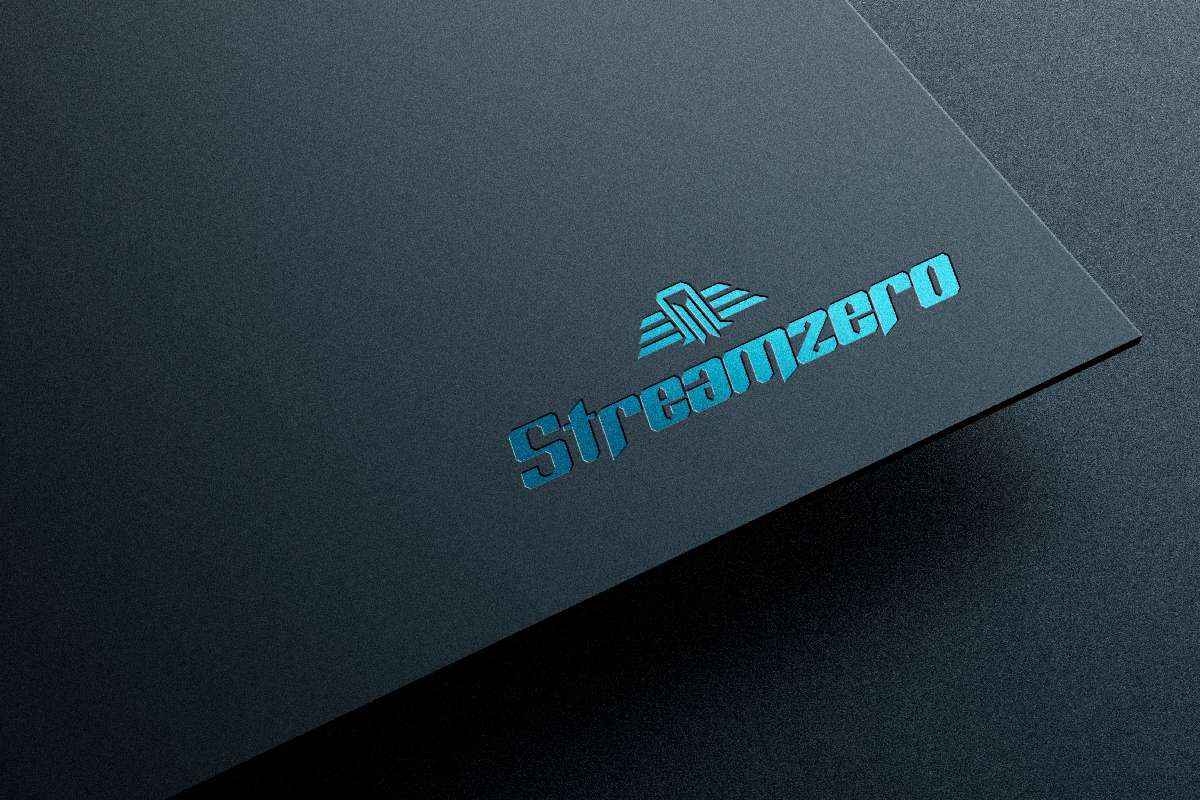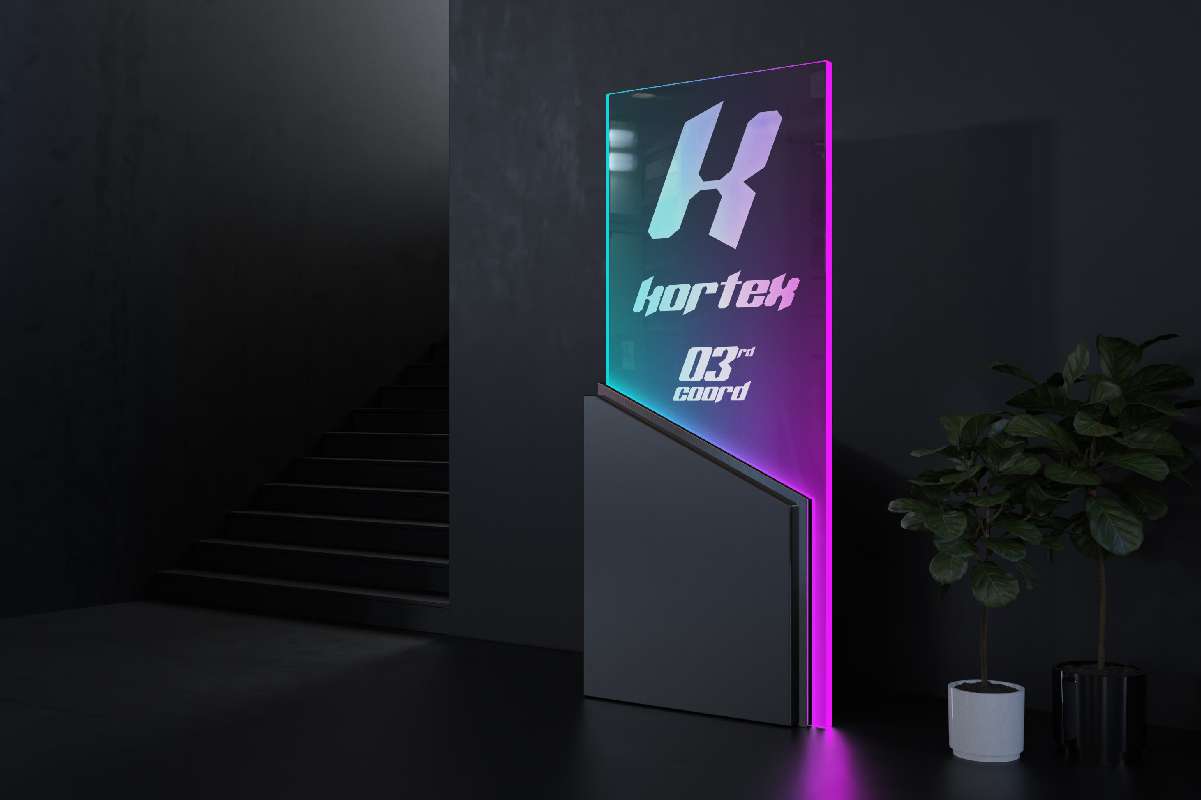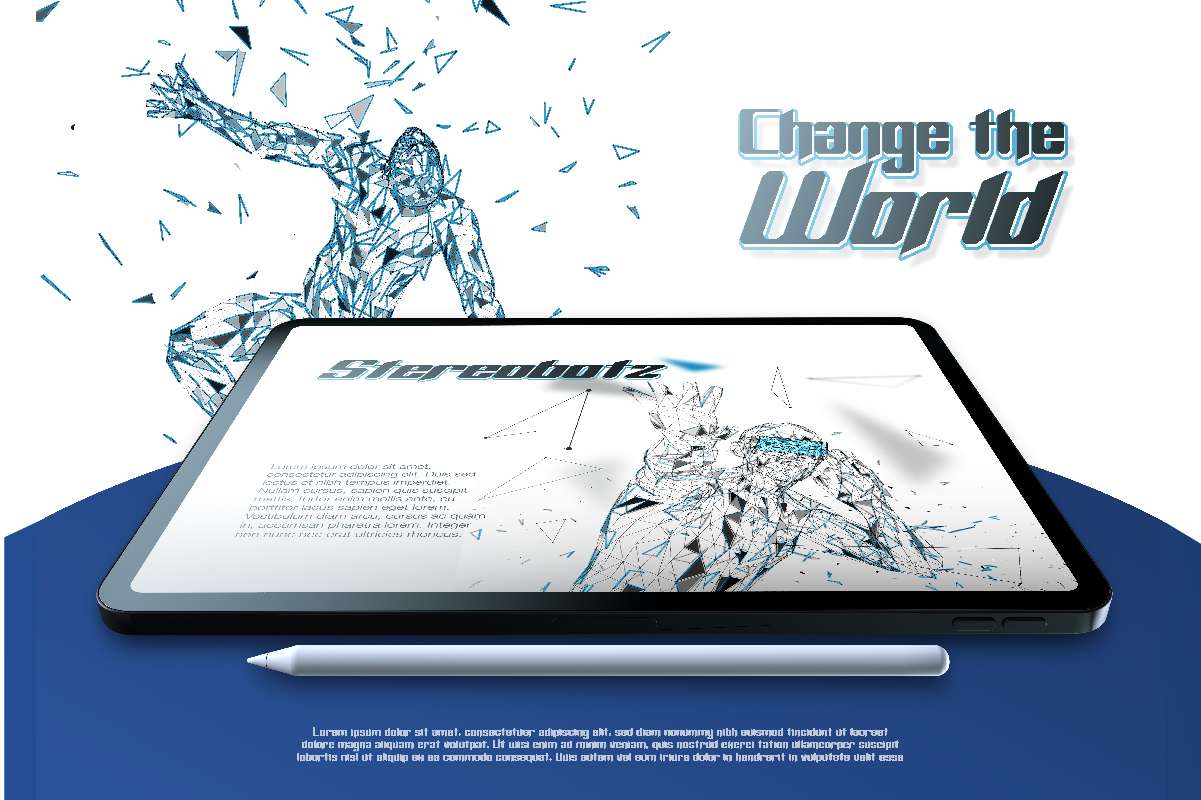
Overtake Font
Overtake Display Font
This font was handcrafted for any your special projects including : headlines, promotion, events, branding, advertising, magazine, signage, invitation, stationery, social media posts, label, or and any projects that need unique strong style. The theme/industries of this font is Movie, Game, Magazine, Music, Video, Sports, Racing etc
Overtake Font comes with three styles : Regular, Italic and Outline. It has full set of uppercase letters, lowercase letters, numerals, a large range of punctuation to make it blended.